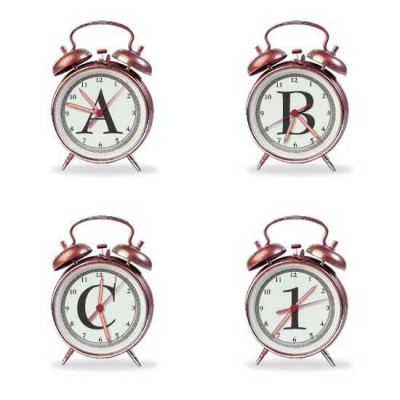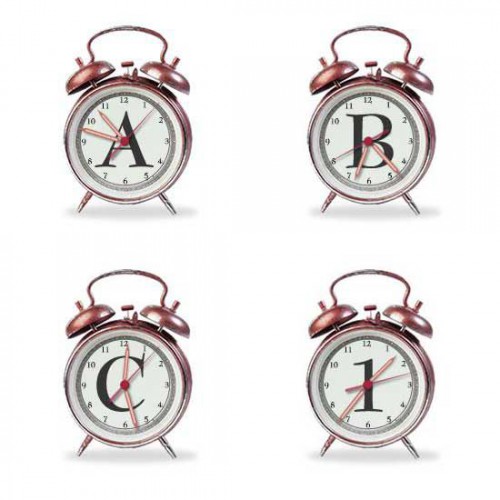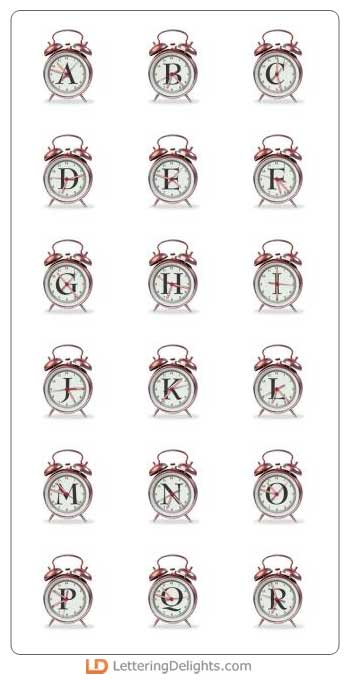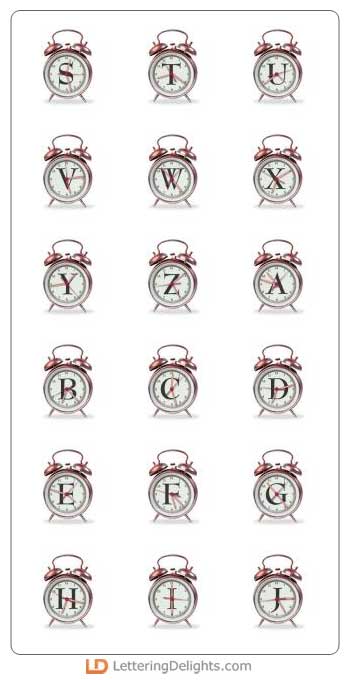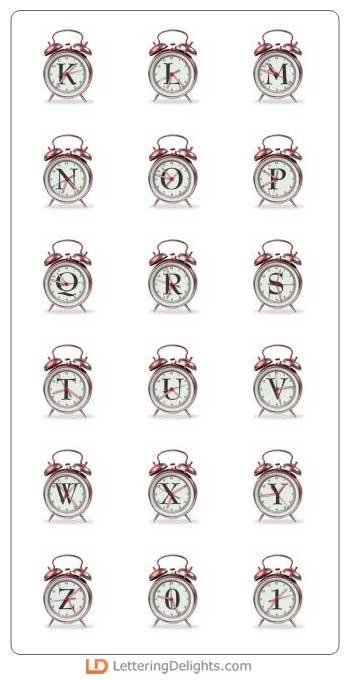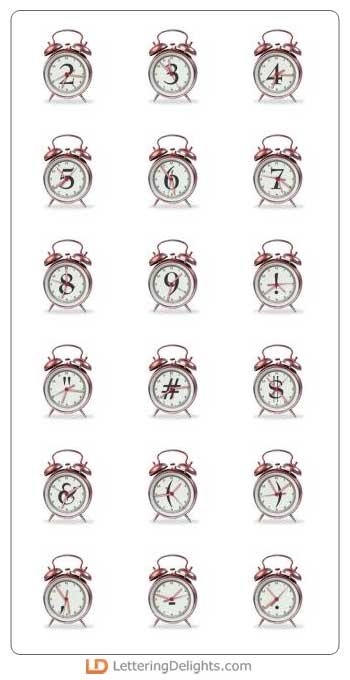
Each letter of this alphabet is fashioned inside an old fashion bell alarm clock. The sweep hands of the alarm are still on the clock. There's no hitting the snooze button on this alphabet.